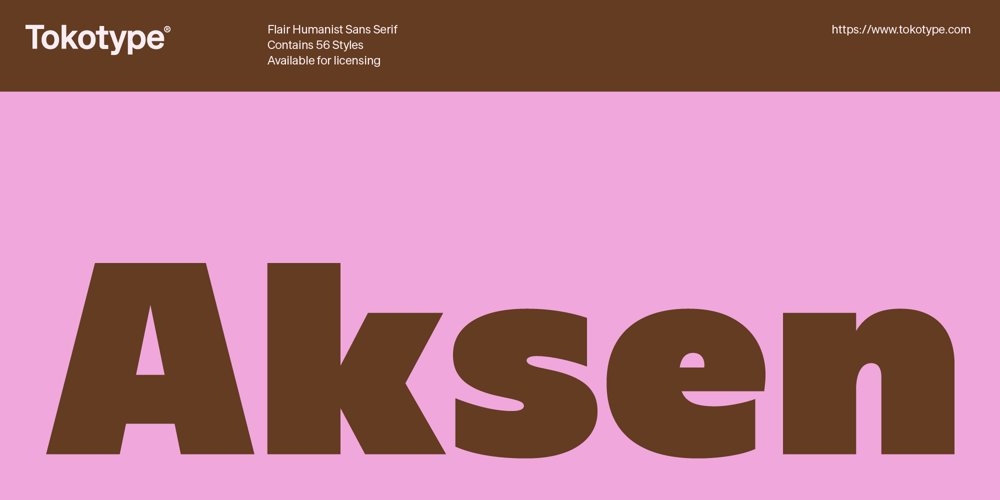
Aksen Font Family was designed by Gumpita Rahayu and published by Tokotype. Aksen contains 61 styles and family package options. Aksen is a humanist sans-serif typeface that draws influence from Roger Excoffon’s Antique Olive. Its design is formed by the rounded, curving letters found in ancient Greek and Roman inscriptions but is implemented with a contemporary and pragmatic approach. This typeface comes in 56 styles consisting of four widths and seven weights, each with matching italics. Also available in variable font format, Aksen Variable boasts three variable axes: width, weight and italic. These axes open up a plethora of stylistic choices making this typeface highly adaptable. Aksen is a versatile typeface that seamlessly blends contemporary humanistic aesthetics with a touch of historical sophistication, making it a perfect fit for a wide range of design applications.